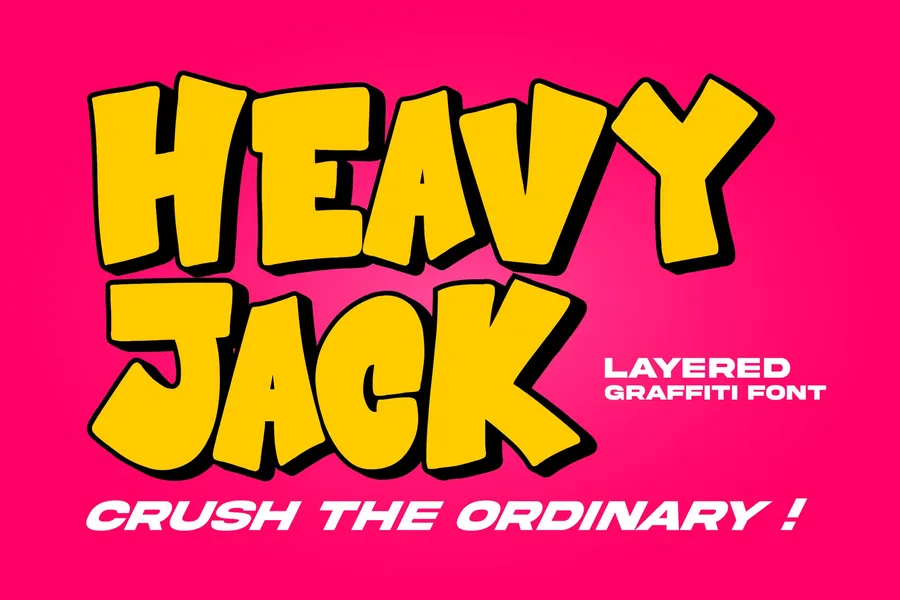
Heavy Jack – Layered Graffiti Font
Meet Heavy Jack, a bold layered graffiti font that hits like a freight train. Designed with urban aggression and heavy street influence, this all-caps display typeface delivers maximum impact across print and digital projects. Whether you’re creating album art, posters, signage, or digital covers, Heavy Jack brings raw power with built-in shadows and explosive letterforms.
This 2-layer graffiti font lets you build stunning, dimensional type in just a few clicks—no extra effects needed. Stack them or use solo for loud, expressive headlines.
Key Features:
All-Caps Urban Typeface with Bold Graffiti Energy
2 Stackable Styles: Regular + Shadow
Multilingual Support – Cover Global Markets
Built for Both Print and Digital Use
Ideal for Album Covers, Poster Art, Motion Graphics & More
Why Designers Love Heavy Jack: Designers choose Heavy Jack when they need loud, unfiltered personality in their type. The stackable shadow style gives instant dimension—no plugins, no hassle. Its versatility and punchy character make it perfect for work that commands attention on screen, in print, or on murals.
Heavy Jack isn’t just a font—it’s a statement piece.
Leave Safe Choices Behind If your typography needs more power, more edge, and more attitude—Heavy Jack is the answer. With multilingual support, drag-and-drop usability, and true graffiti spirit, it’s built for designers who dare to stand out.